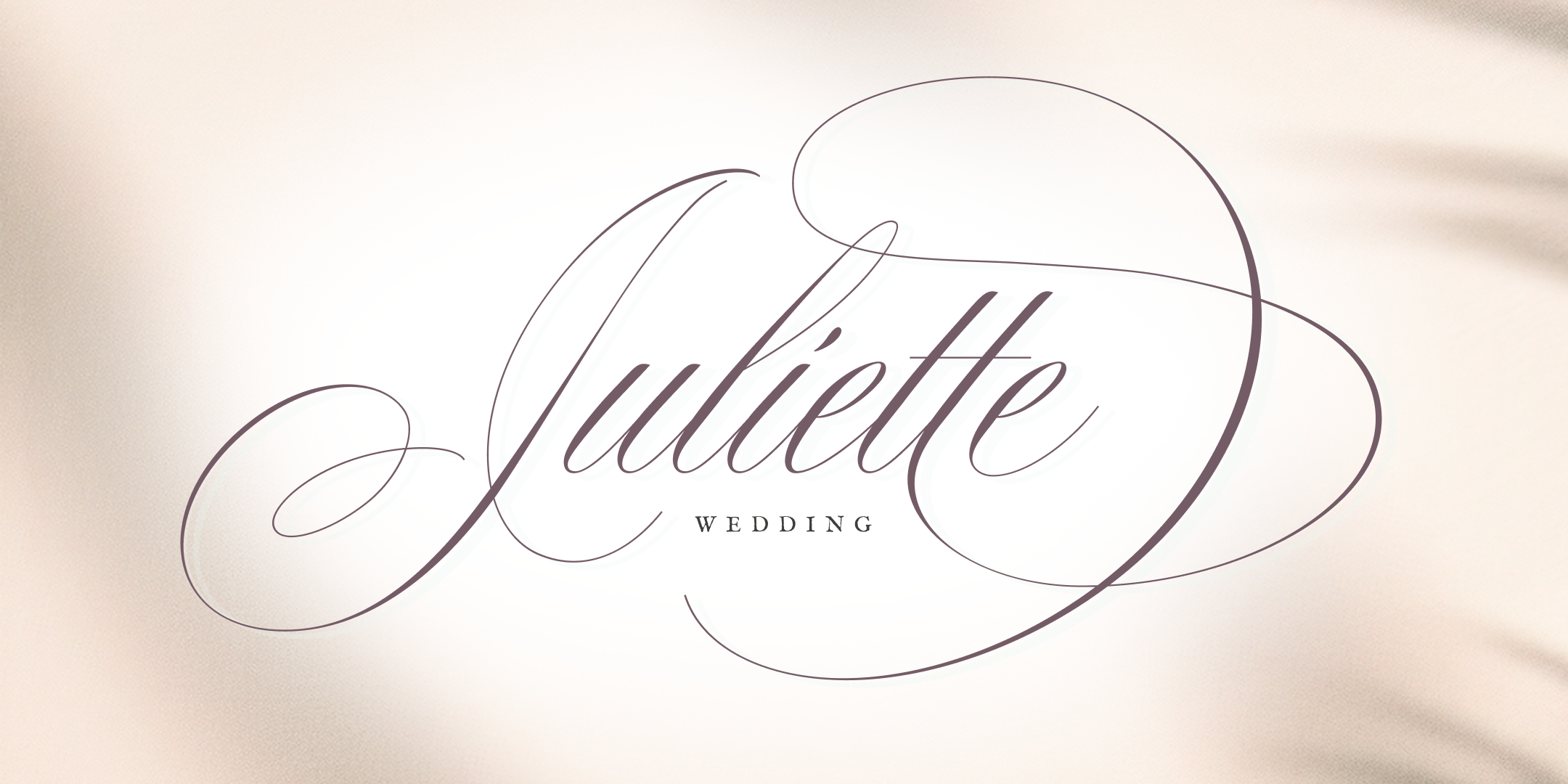
Juliette Wedding Font Free Download presents designers with an enchanting script typeface that embodies romantic elegance and bridal sophistication with heartfelt charm. However, for commercial use, you must purchase this font. You can download it for free for testing purposes only.
Juliette Wedding Font excels in romantic design applications including luxury wedding invitations, bridal shower materials, engagement party signage, romantic restaurant branding, boutique floral shop graphics, elegant event stationery, love-themed greeting cards, anniversary celebrations, intimate venue signage, and dreamy social media campaigns. This graceful typeface brings fairy-tale romance to special occasion projects.
What makes Juliette Wedding Font truly exciting is its perfect capture of handwritten elegance with flowing letterforms that evoke the intimacy of personal love letters. The font features delicate curves, elegant flourishes, and natural rhythm that create warmth and emotional connection while maintaining sophisticated readability. Its romantic personality and bridal character make it ideal for couples and businesses seeking to convey love, celebration, and the magical moments that define life's most precious occasions.
The Juliette Wedding Font family typically includes Regular weight with extensive decorative swashes, ligatures, and ornamental elements that enhance its romantic character. These beautiful options provide designers with authentic script styling while maintaining the font's distinctive bridal elegance and heartfelt presentation across various wedding applications and romantic contexts.
Whether you're developing wedding industry branding, creating bridal event materials, or designing romantic campaigns, Juliette Wedding Font Free Download delivers the romantic authenticity and elegant sophistication that love-centered projects require. Its exceptional grace and bridal appeal make it invaluable for designers working with wedding planners, romantic venues, and celebration-focused businesses requiring script typography that captures the beauty, emotion, and timeless romance of life's most treasured moments and milestone celebrations.